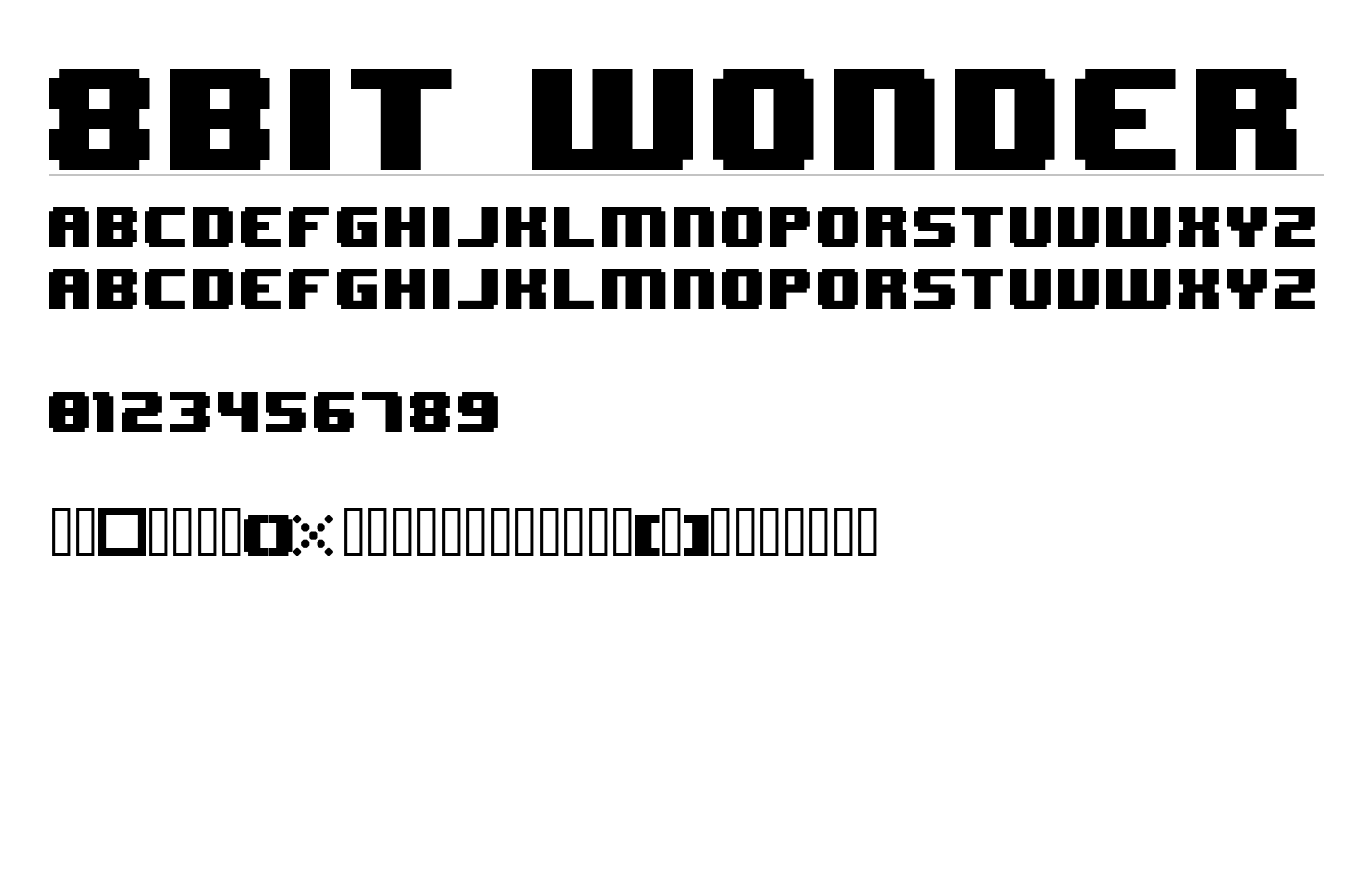
8BIT WONDER is a bold, blocky pixel-style sans serif font that captures the nostalgic feel of retro video games and digital displays. Its rigid, square-shaped letterforms and uniform stroke weight create a distinctive 8-bit aesthetic, making it perfect for designs that want to evoke a playful, vintage tech vibe. This font works especially well for logos, posters, and game-related projects where a strong, eye-catching style is desired.
8BIT WONDER Font